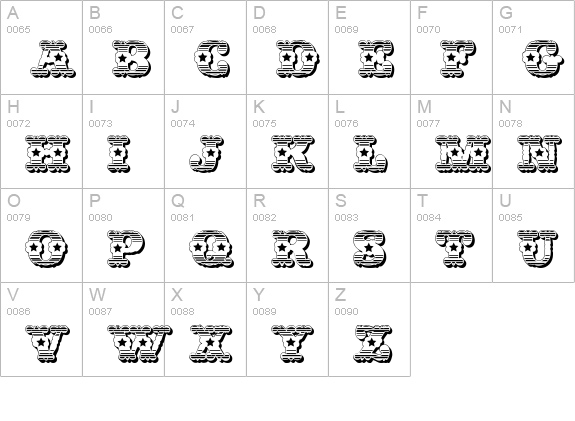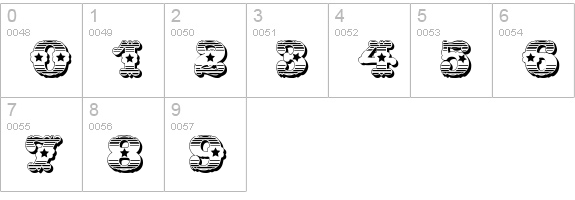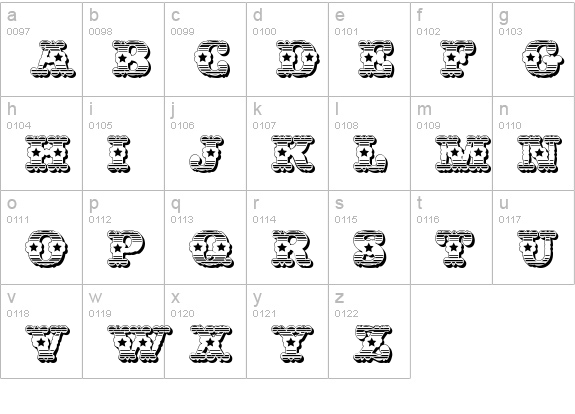
Introducing Wild West USA, a font that perfectly captures the untamed spirit of the American frontier. This rugged and bold typeface pays homage to the Wild West, where legends were born and adventures awaited at every turn. With its distinct serifs and vintage-inspired design, Wild West USA brings to life the essence of the Old West in every letter. Whether you're designing a poster for a Western-themed event, creating a logo for a cowboy-inspired brand, or simply adding a touch of rustic charm to your personal projects, Wild West USA is the perfect choice. Its strong and expressive characters evoke a sense of nostalgia, transporting you back to a time when cowboys rode the open plains and saloons buzzed with excitement. And the best part? Wild West USA is freely available to download at FontsMarket.com. That's right, you can bring the Wild West to your designs without spending a dime. With just a few clicks, you can have this remarkable font at your fingertips, ready to add a touch of rugged authenticity to your creations. But don't let its free availability fool you - Wild West USA is a high-quality font that delivers on both style and versatility. Its carefully crafted characters ensure legibility, making it suitable for a wide range of design projects. Whether you're working on digital or print media, this font will make a bold statement and leave a lasting impression. So saddle up and let Wild West USA take you on a typographic adventure. Download it for free at FontsMarket.com and bring the spirit of the Wild West to your designs today. Embrace the untamed and channel the energy of the frontier with this remarkable font that captures the essence of a bygone era. Get ready to unleash your creativity and embark on a journey to the Wild West with Wild West USA.